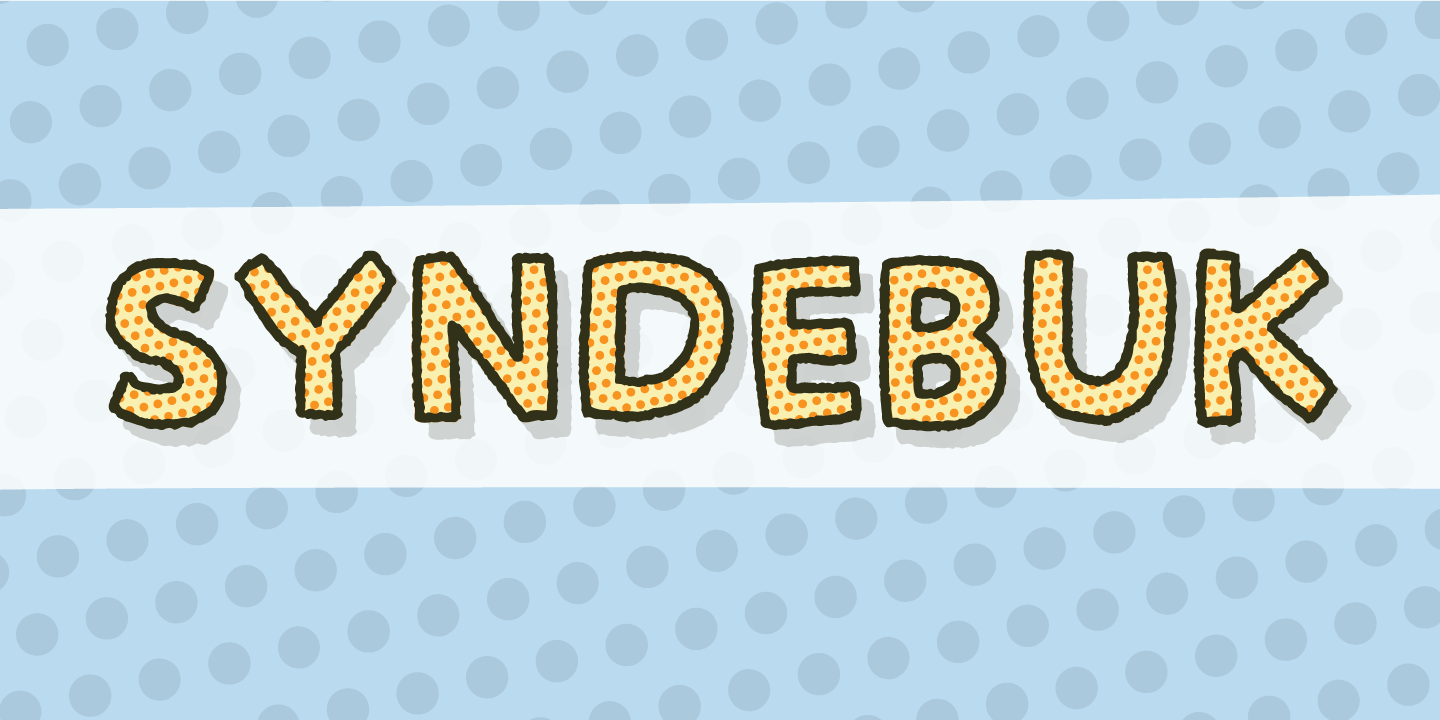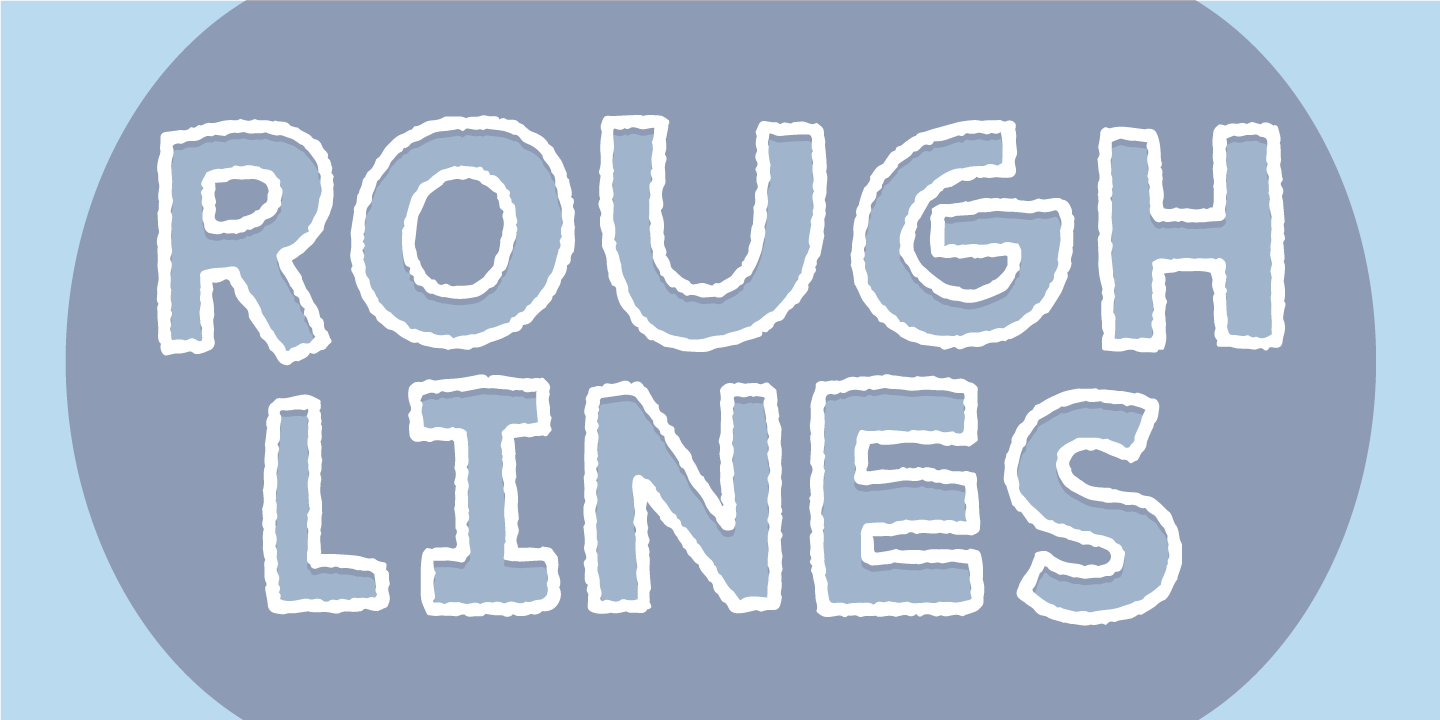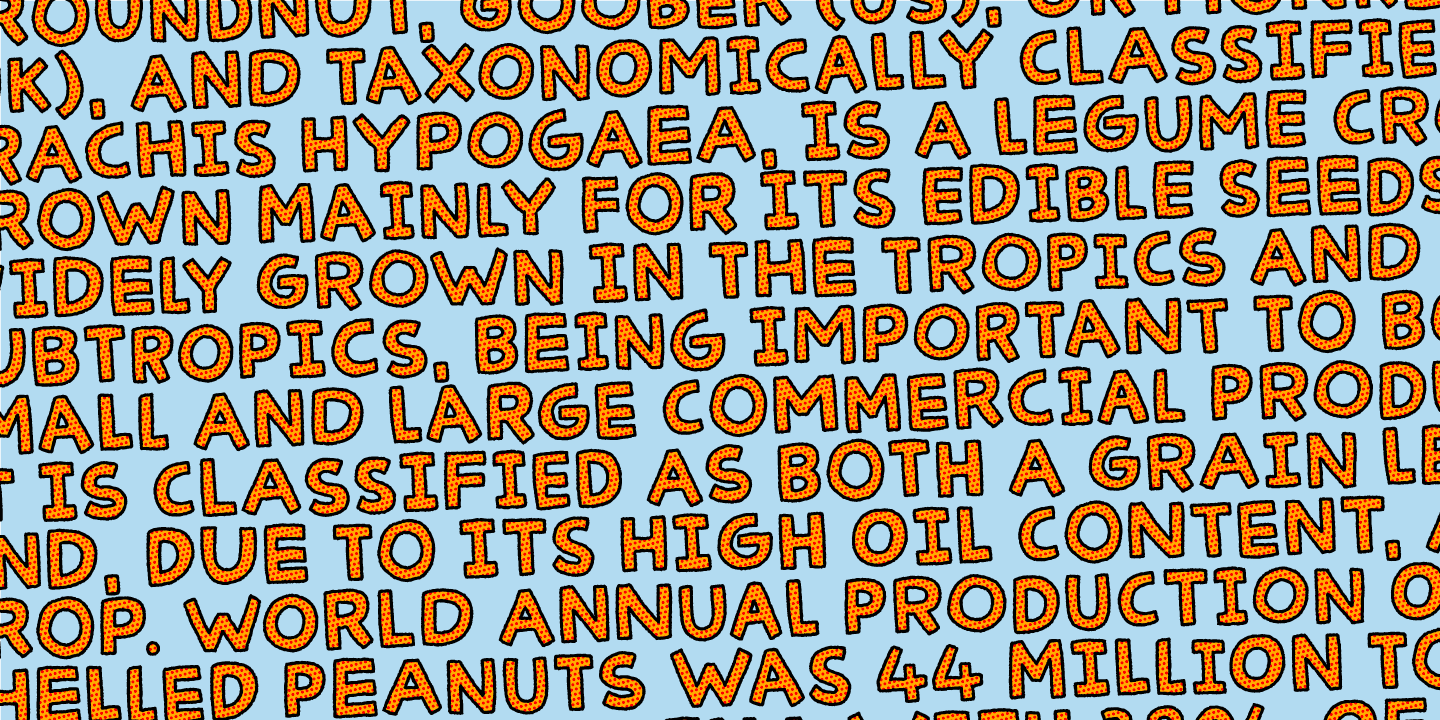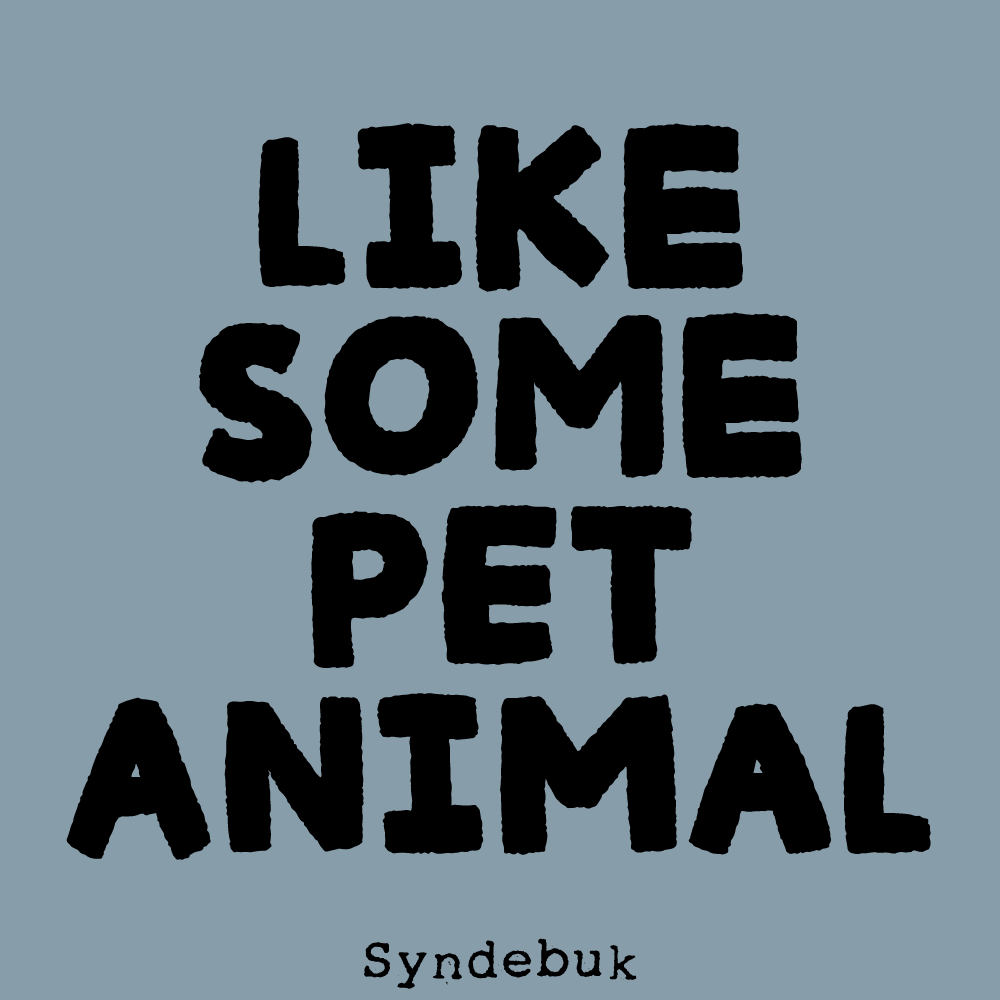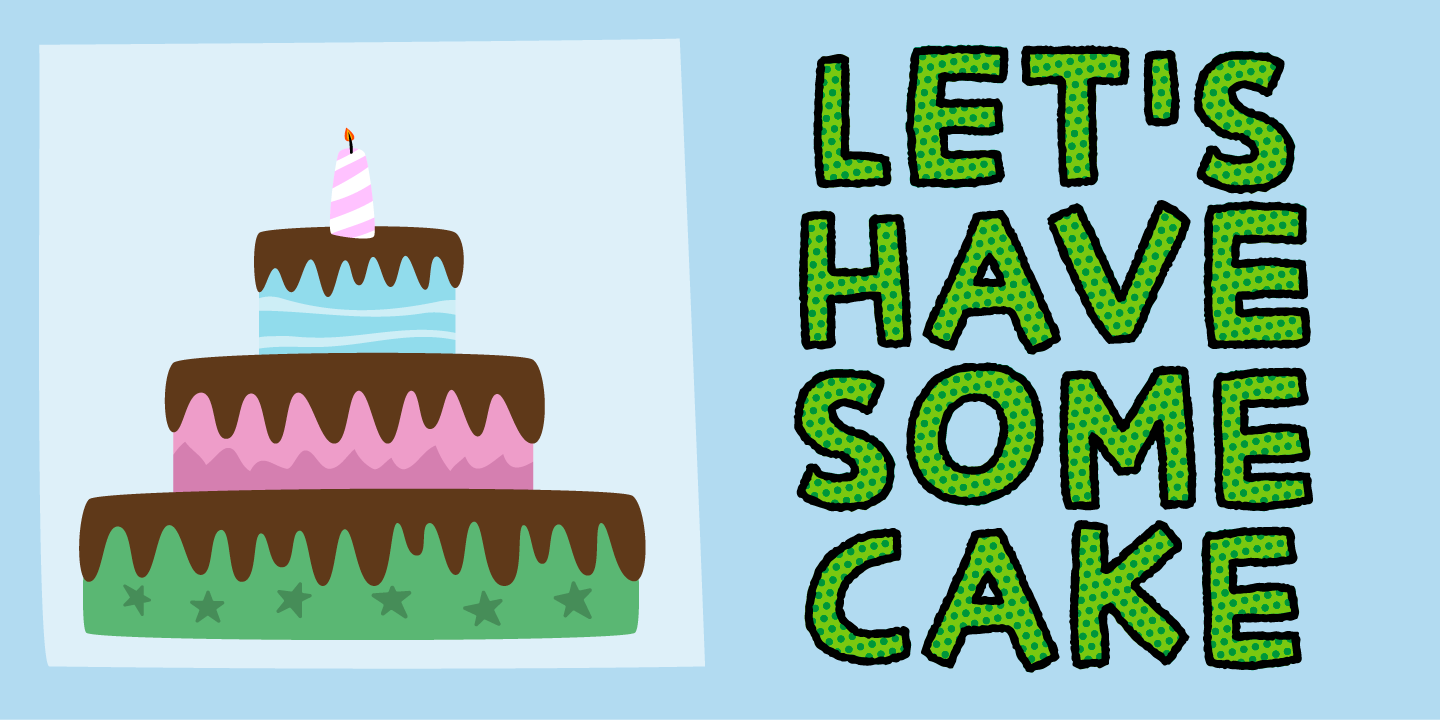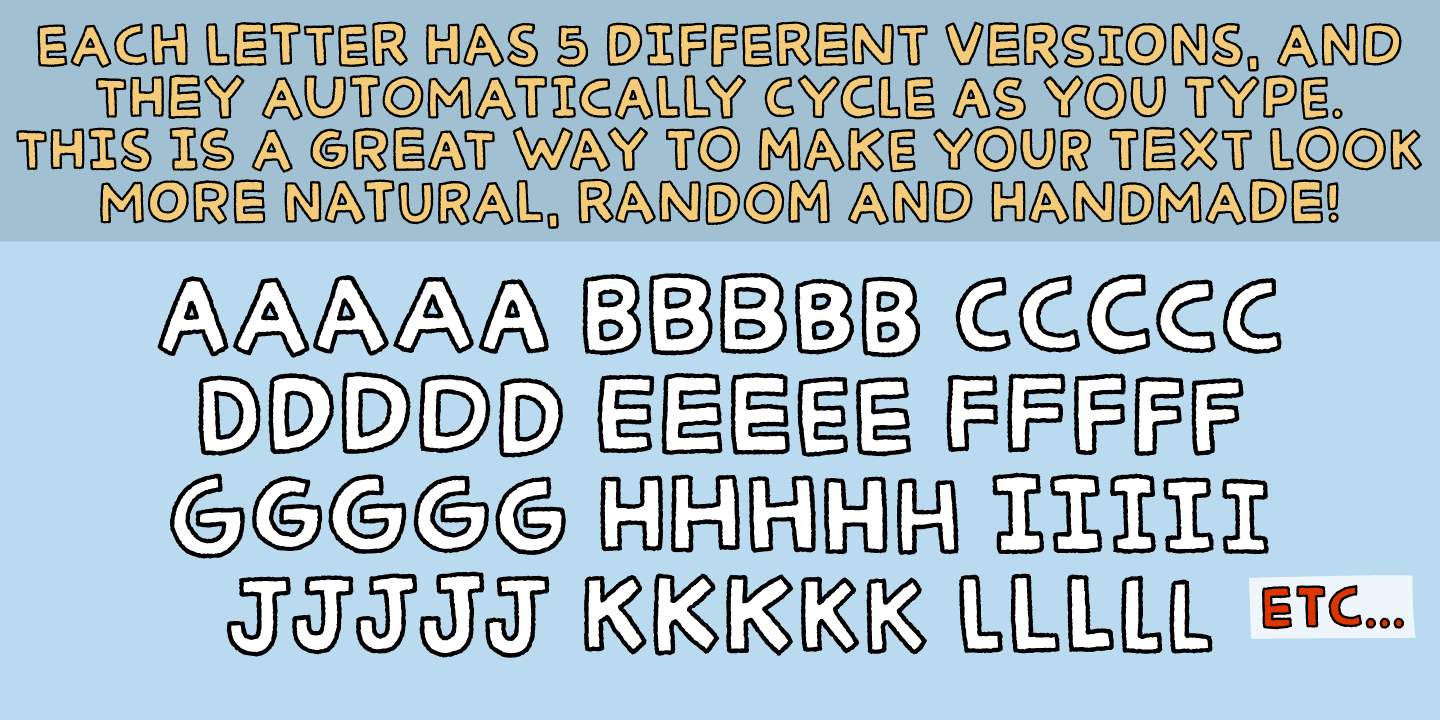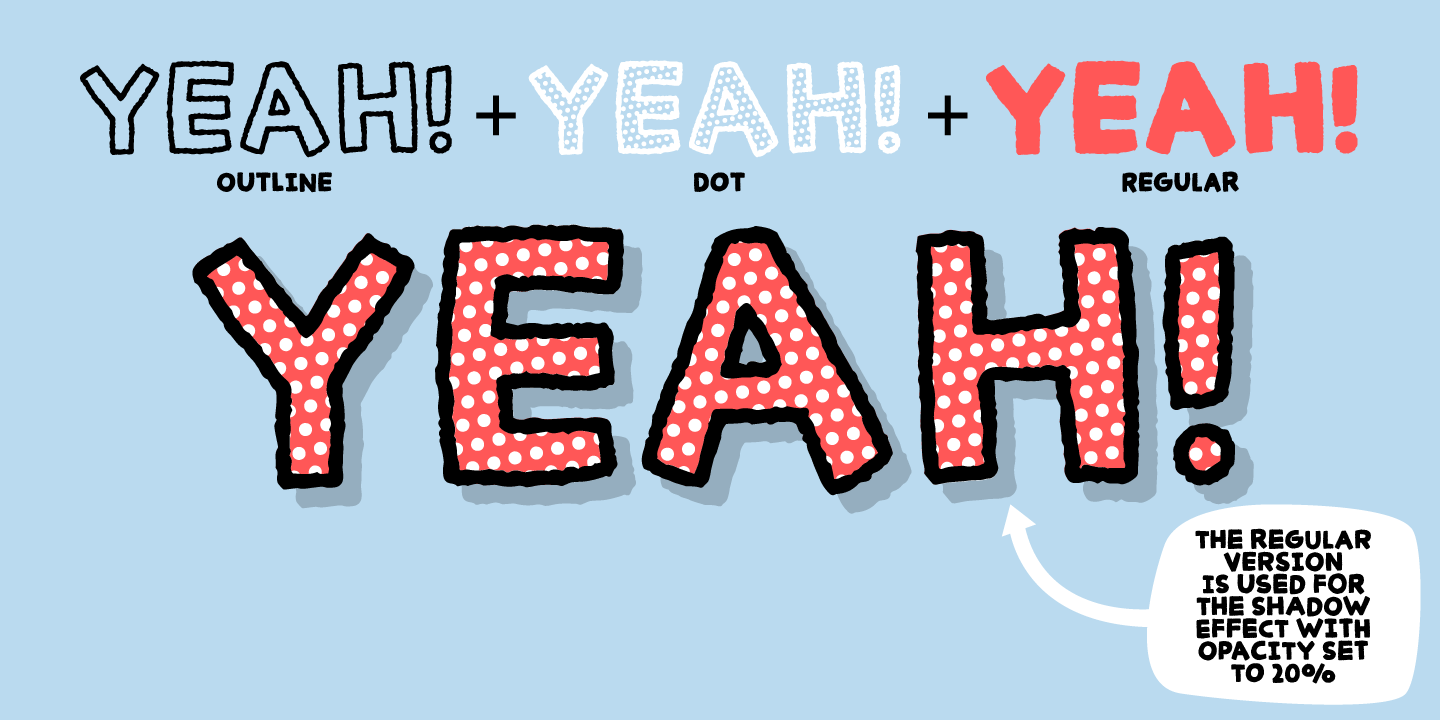
Syndebuk
Syndebuk is designed with comics and print in mind. I’ve added 5 slightly different versions of each letter, which really comes in hand when you need a natural and organic handmade look. Play around with the different layers for nice effects!